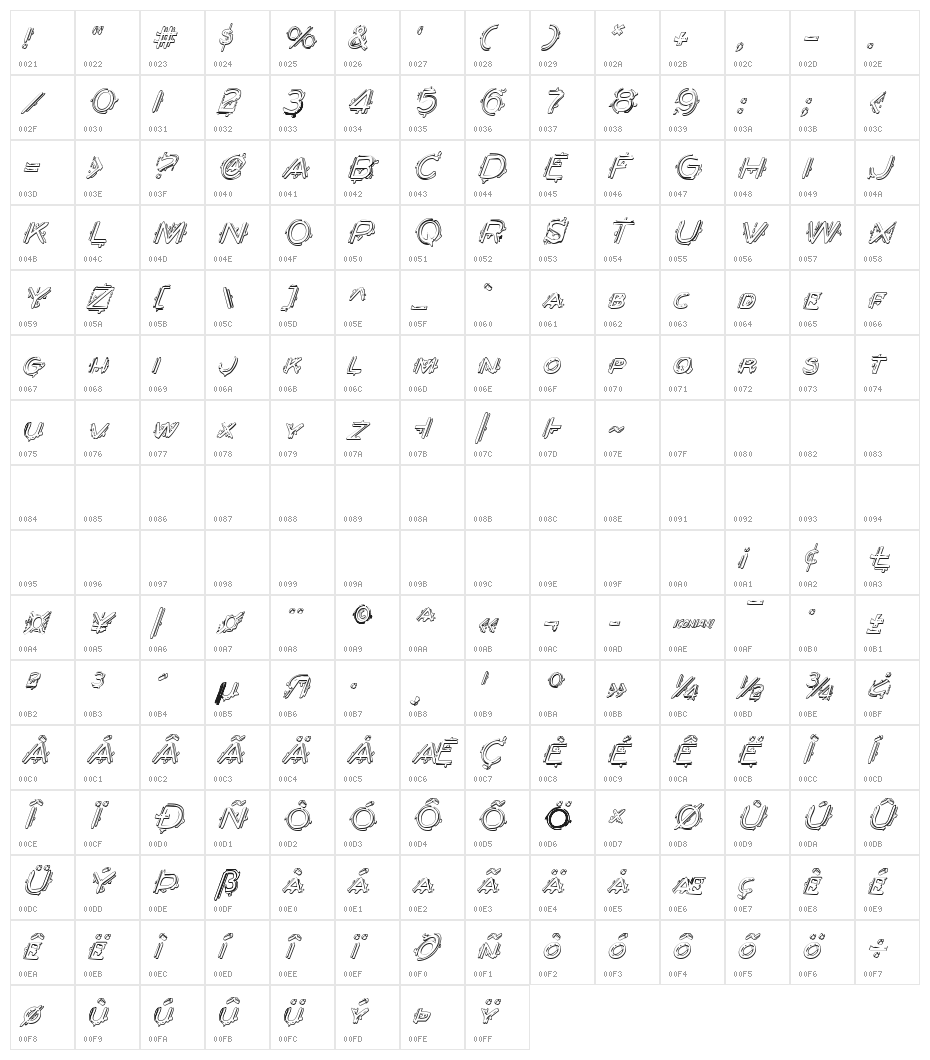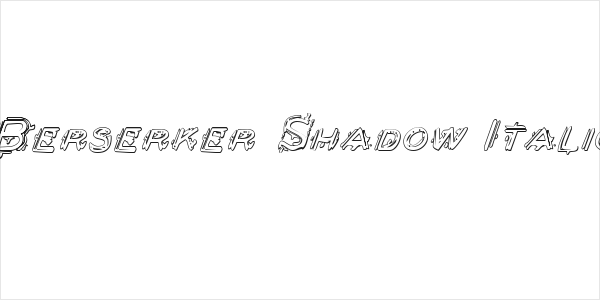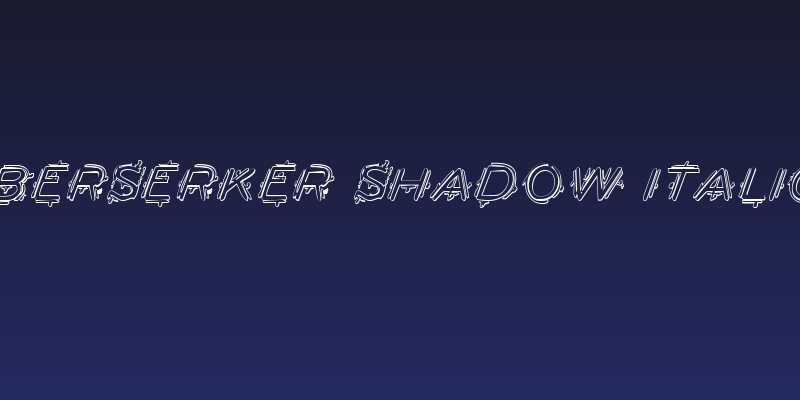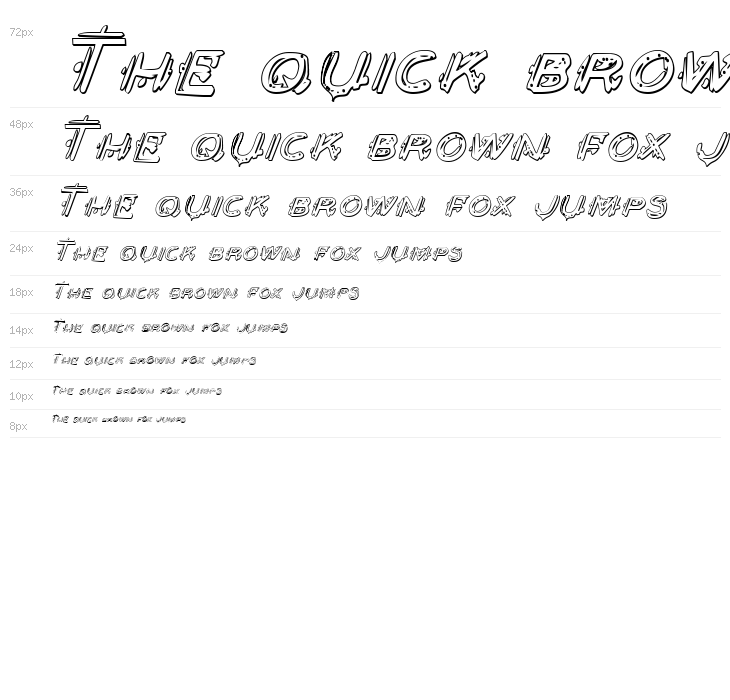
Berserker Shadow Italic Font
Berserker Shadow Italic Description
This font features a bold and dynamic style with a shadow effect that gives it a three-dimensional appearance. The italicized letters add a sense of motion and energy, making it stand out. Each character is outlined with a thick border, enhancing its visibility and impact. The font combines elements of both modern and decorative styles, with unique, edgy details that make it suitable for eye-catching designs. The uppercase and lowercase letters maintain a consistent style, while the numbers and special characters are equally bold and expressive.